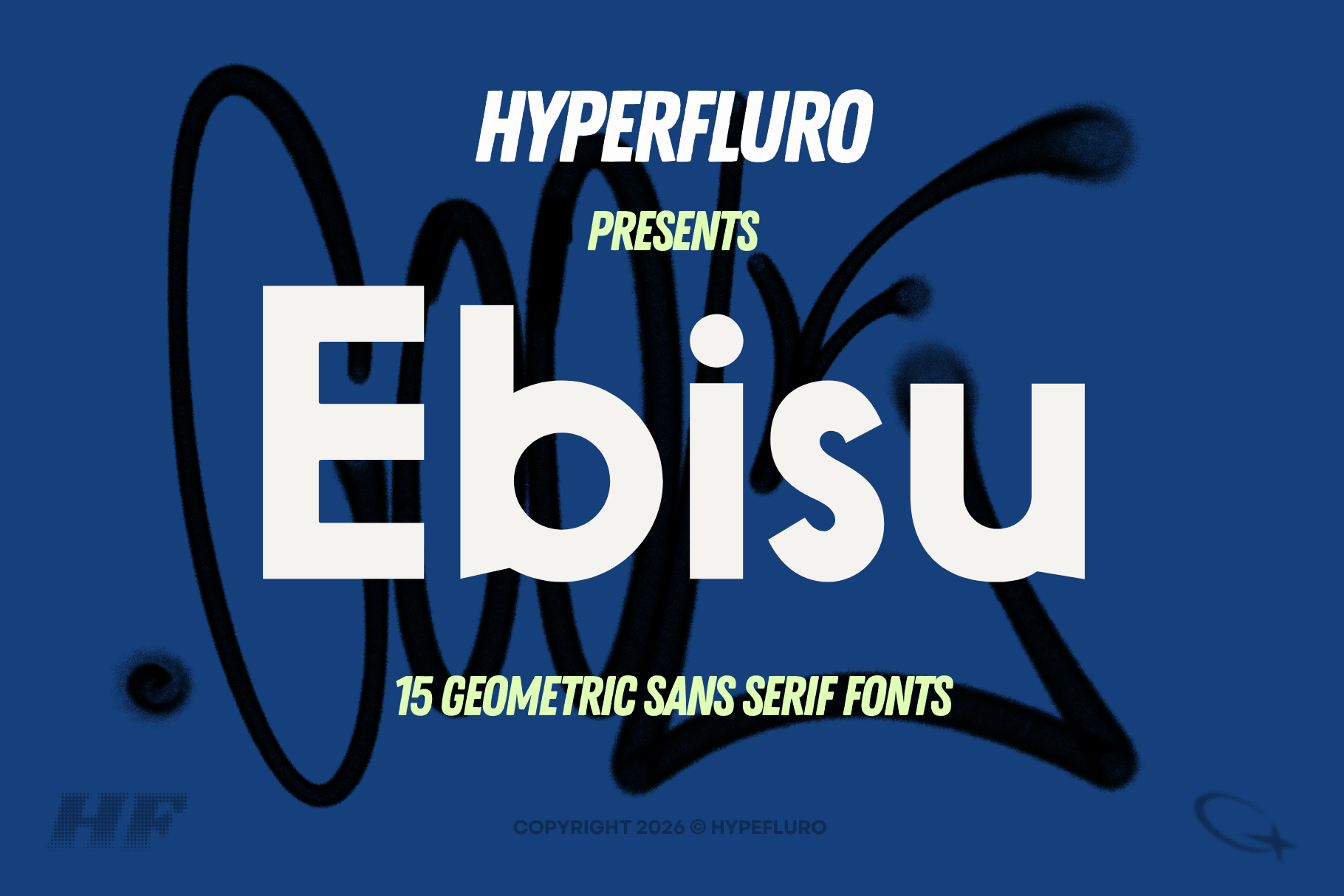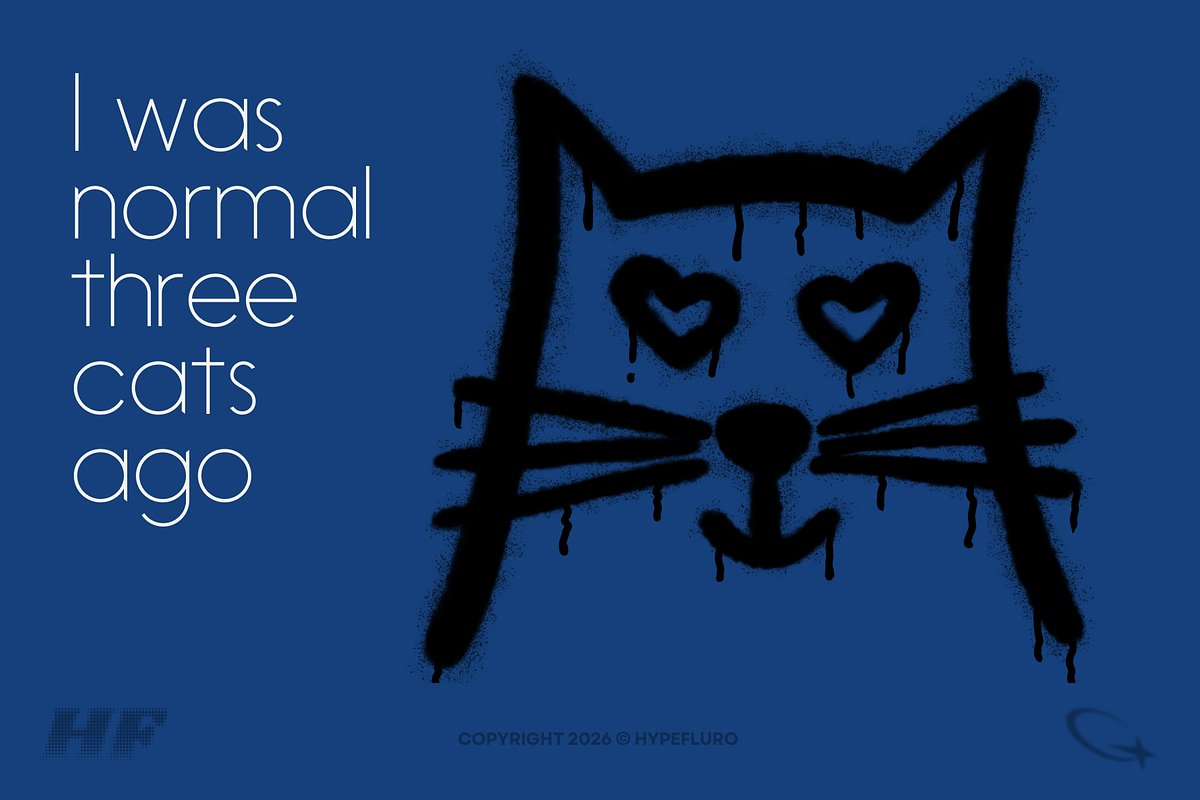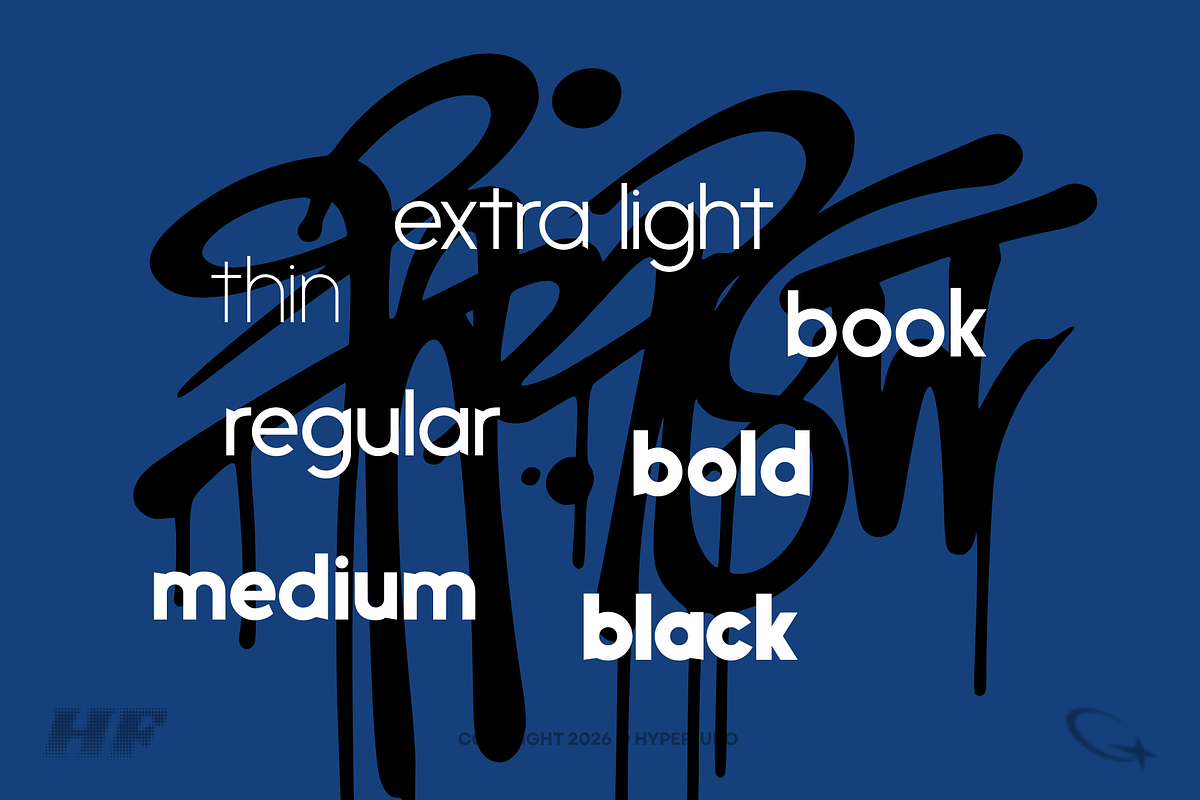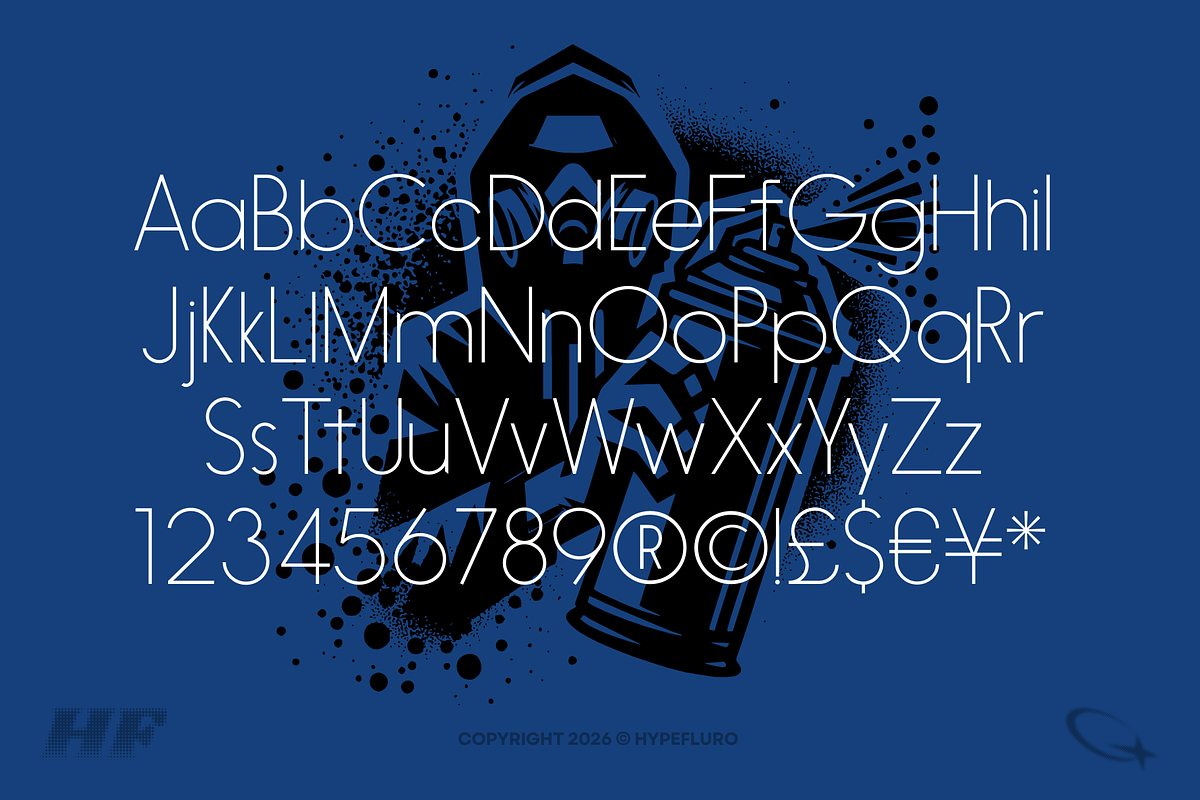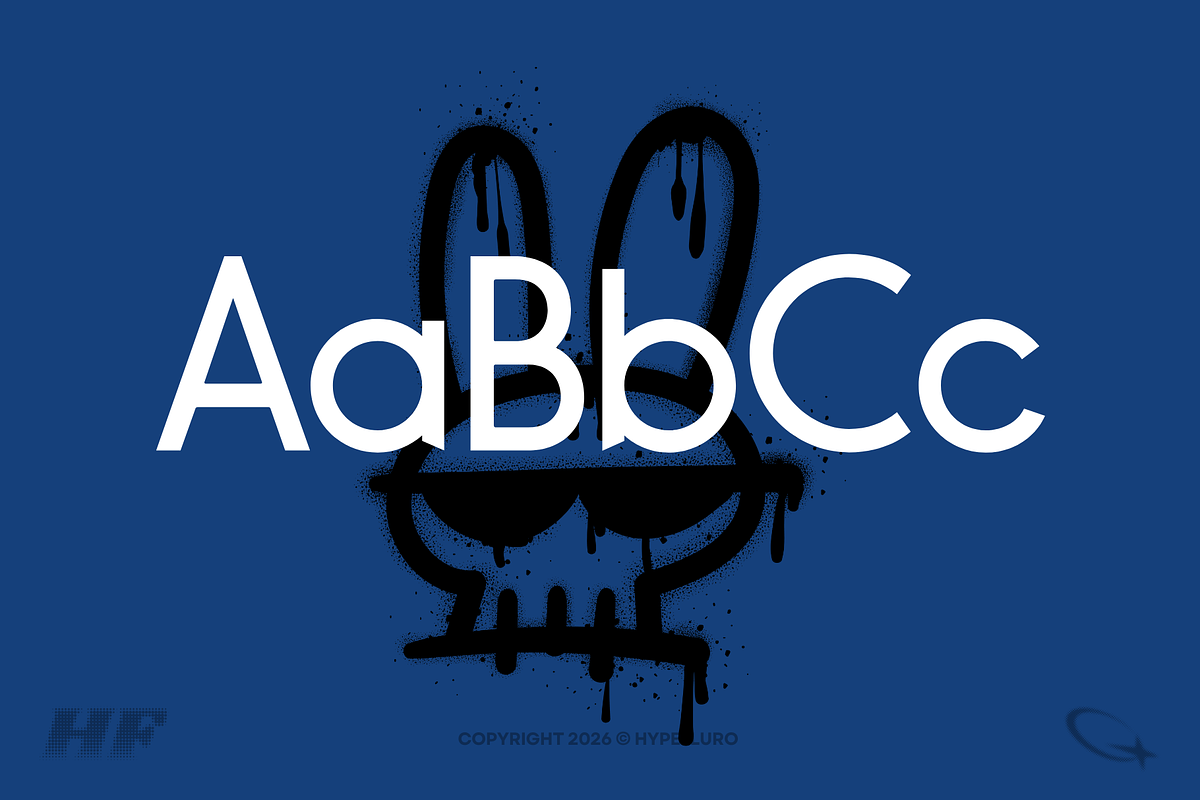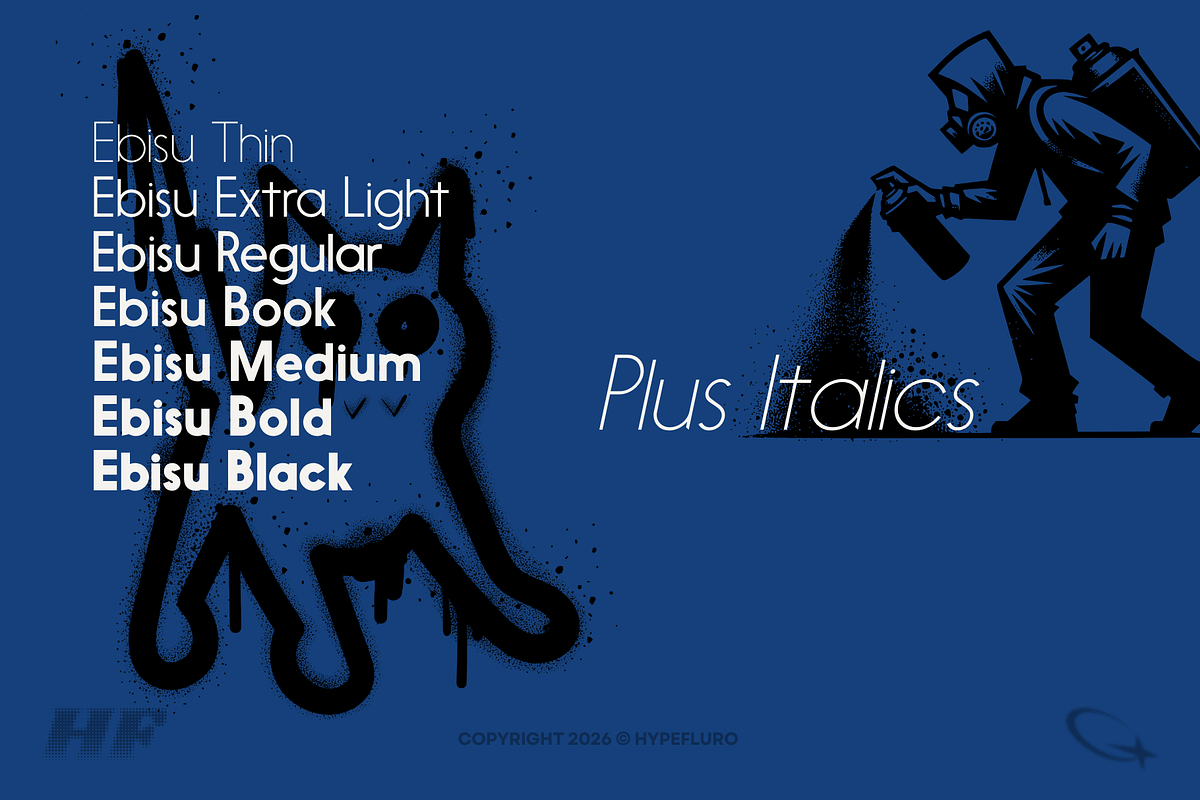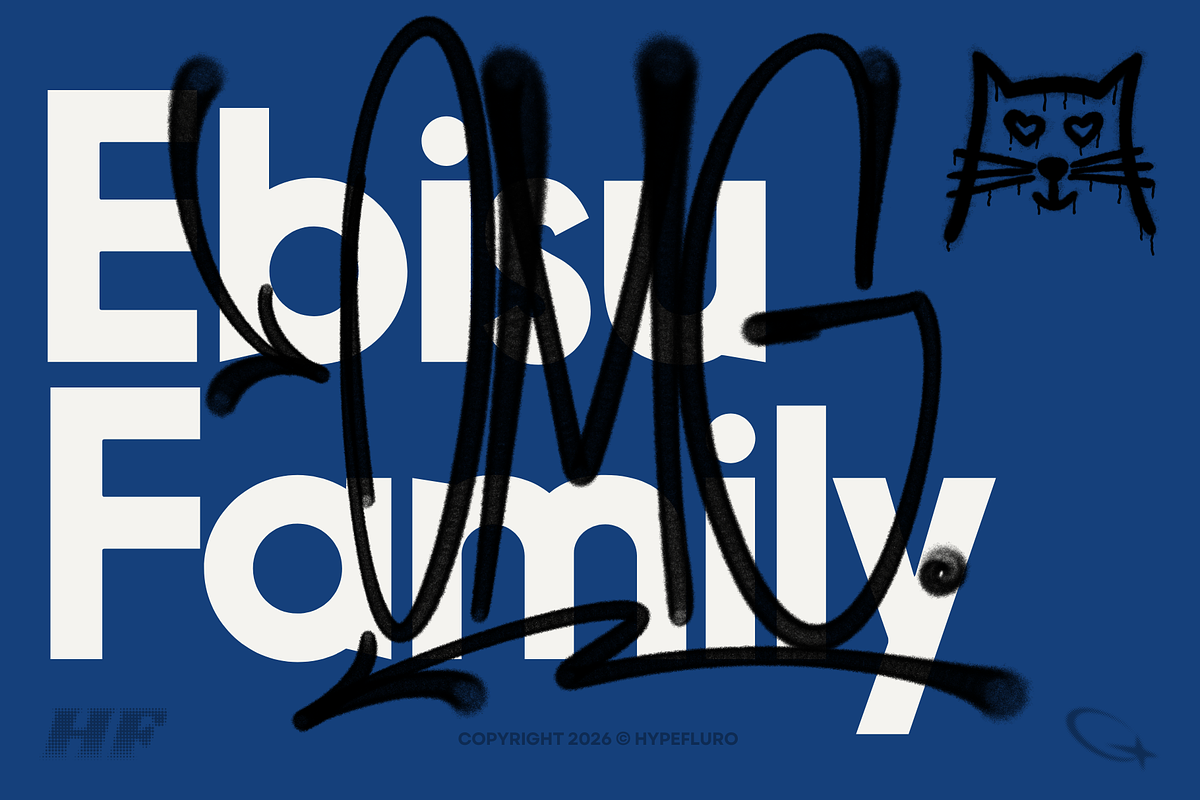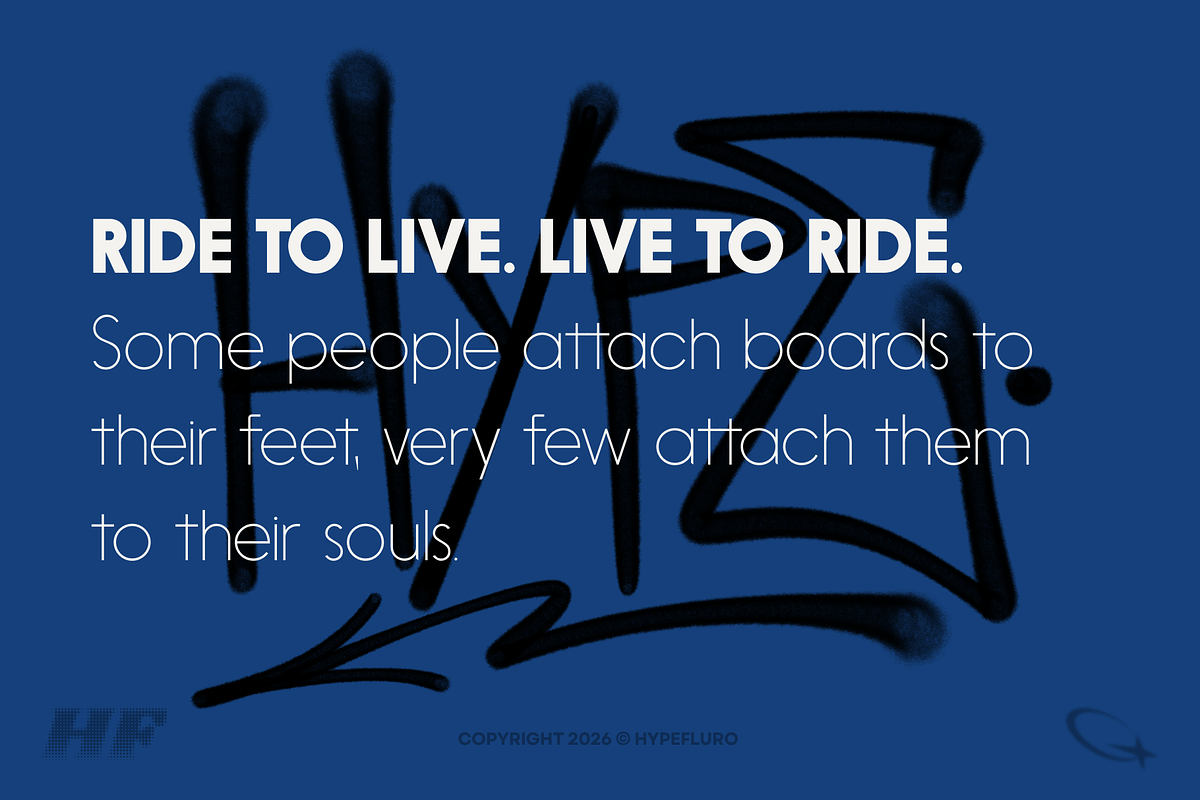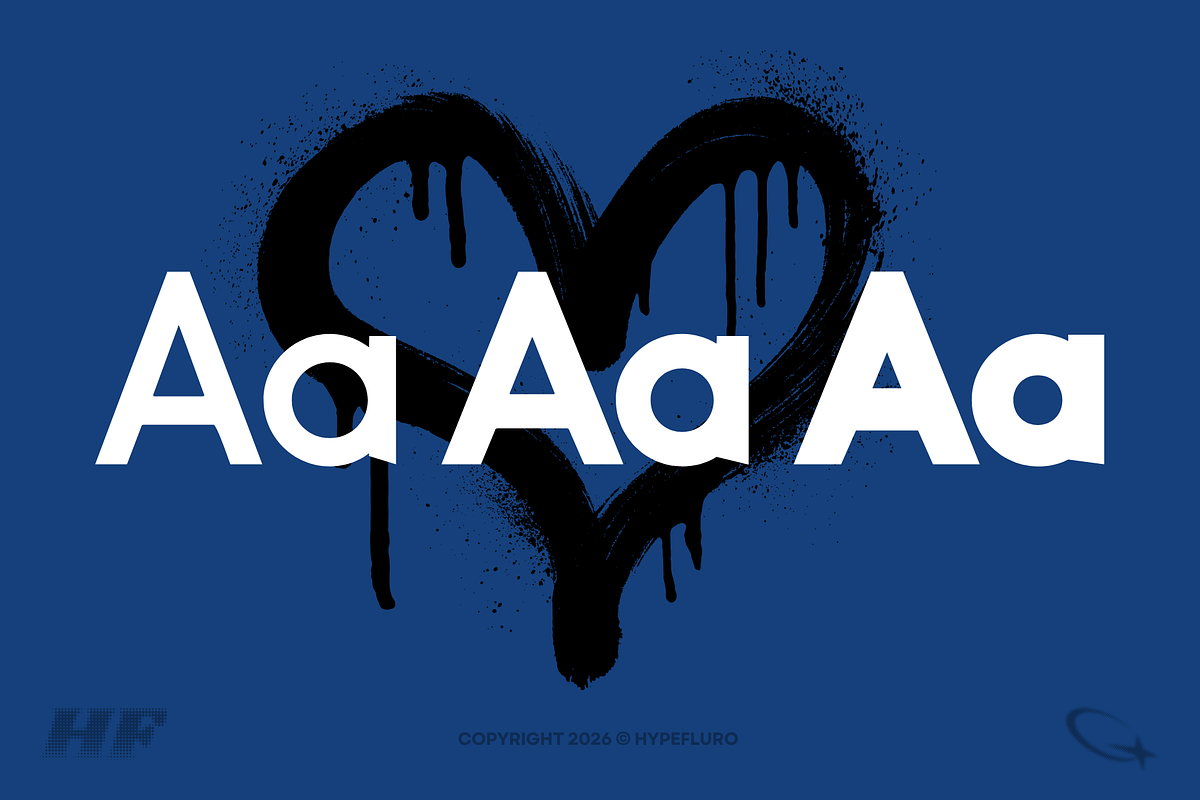
Ebisu 16 Sans Serif Text Fonts
Ebisu Font Family: A Modern Sans Serif Typeface with 16 Distinctive Weights
Ebisu is a contemporary sans serif font family that features 16 unique weights, offering exceptional versatility and precision. Designed by Alex Haigh in 2010, Ebisu builds on the success of Haigh’s earlier 2008 global best-seller, Hiruko. This modern typeface offers a bold departure from traditional soft curves, embracing a geometric style with sharp, exaggerated lowercase characters that give the font family a distinctive, contemporary aesthetic.
Crafted with meticulous attention to detail, Ebisu’s kerning ensures perfect harmony across all 10 weights. Every letter is designed individually, guaranteeing seamless integration within various typographic compositions. This focus on precision results in a cohesive and tightly knit sans serif family that is perfect for modern design applications.
One of Ebisu’s standout features is its extensive OpenType support. The font offers a broad character set that accommodates both Eastern and Western European languages, expanding its usability for global design projects. Each weight in the Ebisu family conveys a unique personality, making it a highly flexible choice for any designer's toolkit.
With its clean lines, geometric structure, and versatile range of weights, Ebisu is the ideal modern sans serif font family for those looking to complement classic typefaces with a fresh, cutting-edge look. Whether you’re designing logos, websites, or print materials, Ebisu provides the perfect balance of style and functionality for any contemporary typographic project.